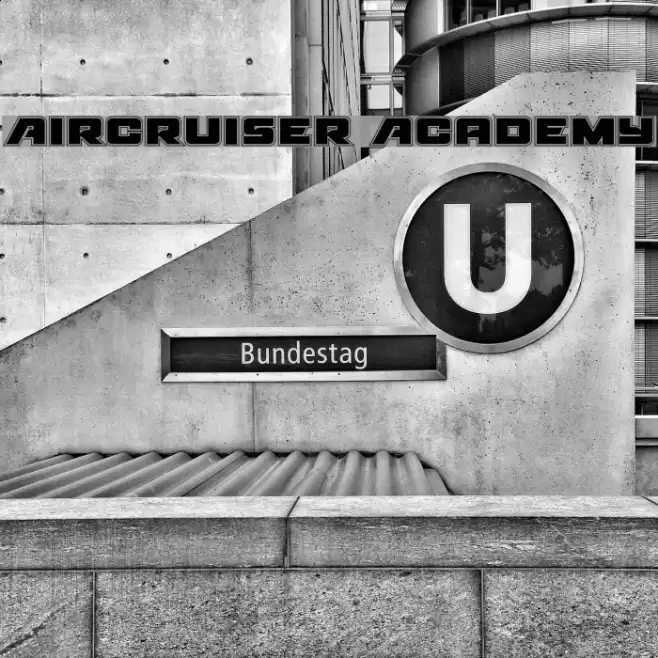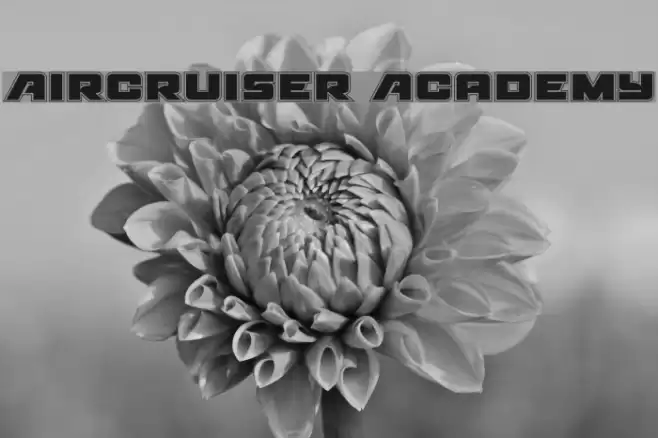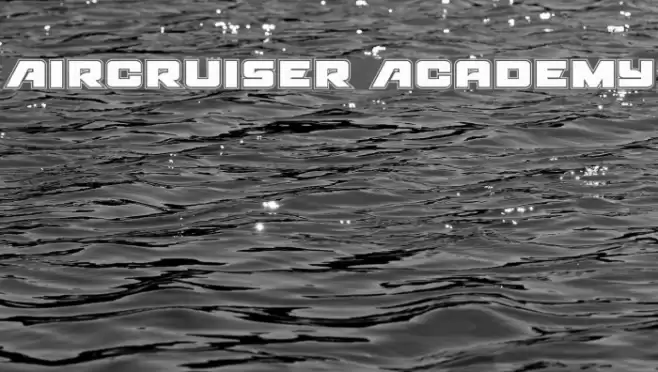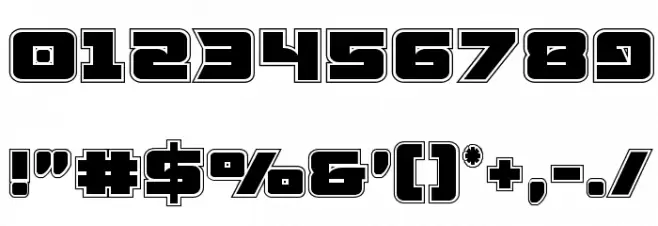
Aircruiser Academy Font
Aircruiser Academy Description
This font features a bold, geometric design with a strong presence, characterized by thick strokes and a three-dimensional effect. The uppercase letters are angular and structured, giving a futuristic and industrial feel. The lowercase letters maintain the same boldness and geometric style, ensuring consistency across different text cases. Numbers and special characters are designed to match the overall aesthetic, with sharp edges and a solid appearance. The font's distinct outline adds depth, making it stand out in any design.
A bold, geometric font with a three-dimensional effect and strong presence from Uncategorized fonts.
- Proposed Projects: Ideal for projects requiring a modern, industrial look such as tech branding, video game titles, or futuristic posters.